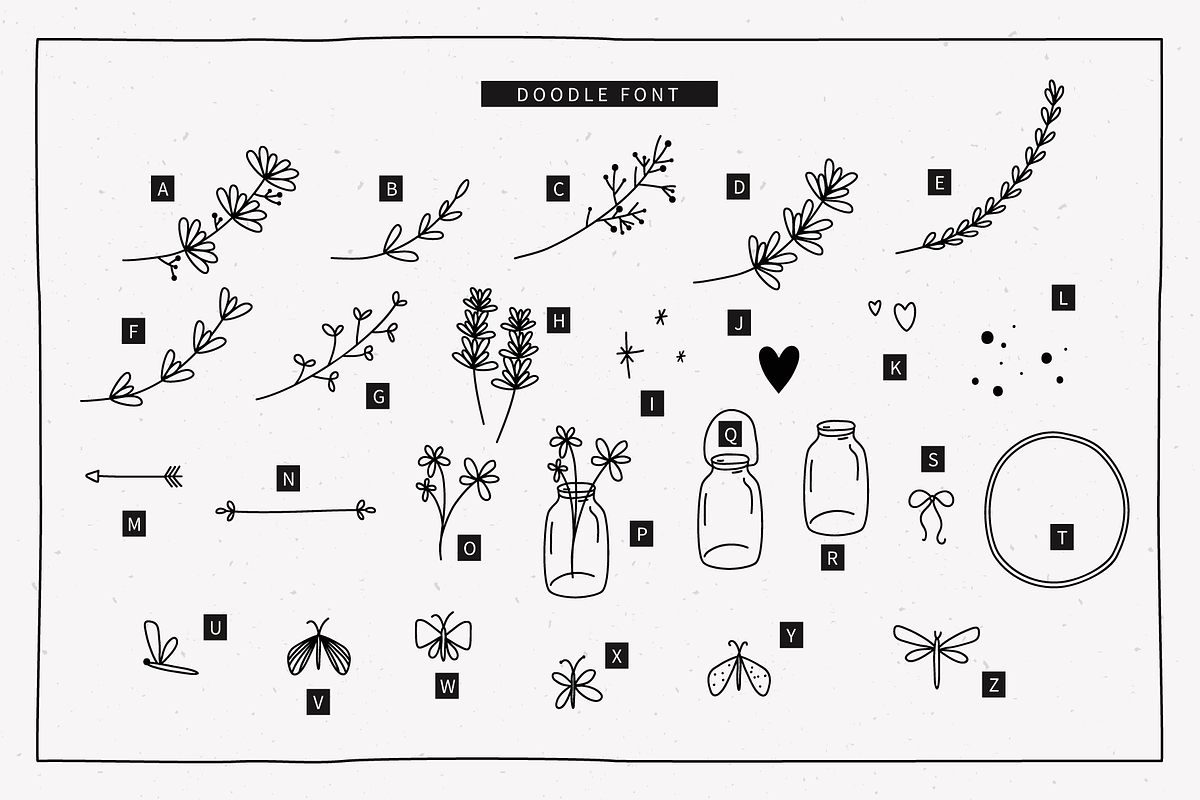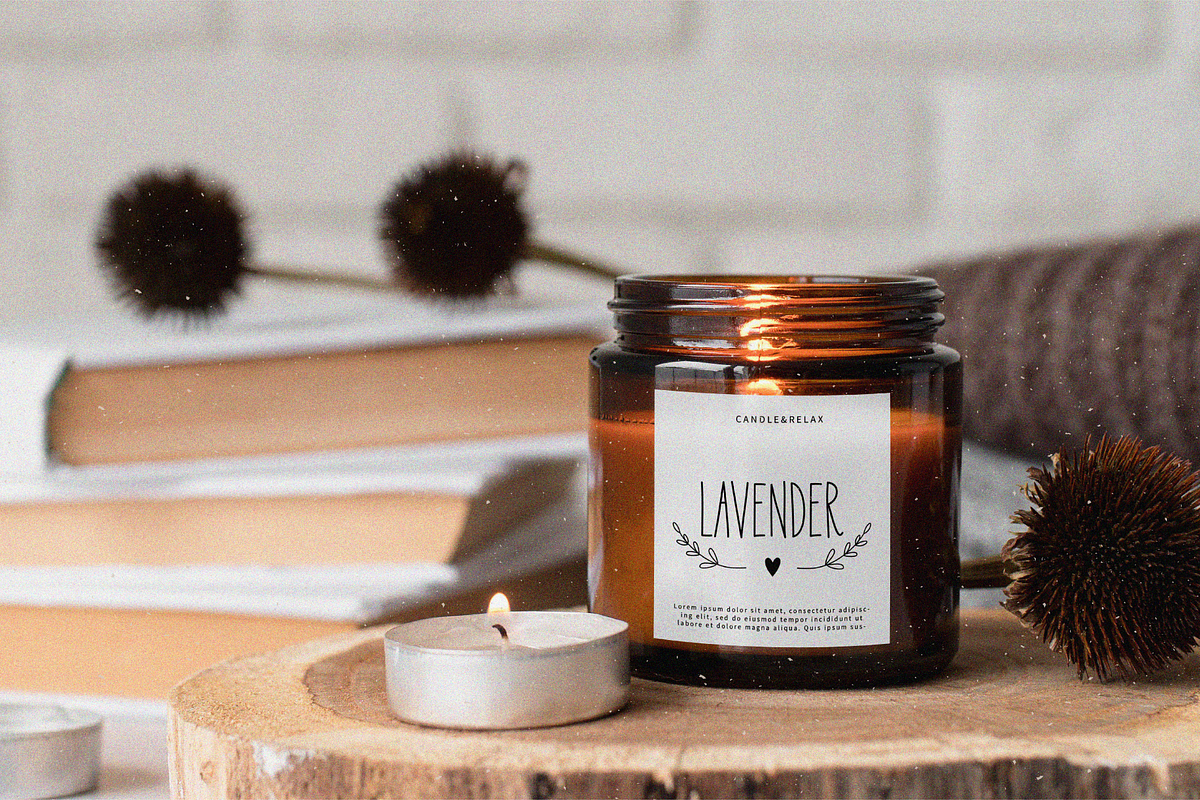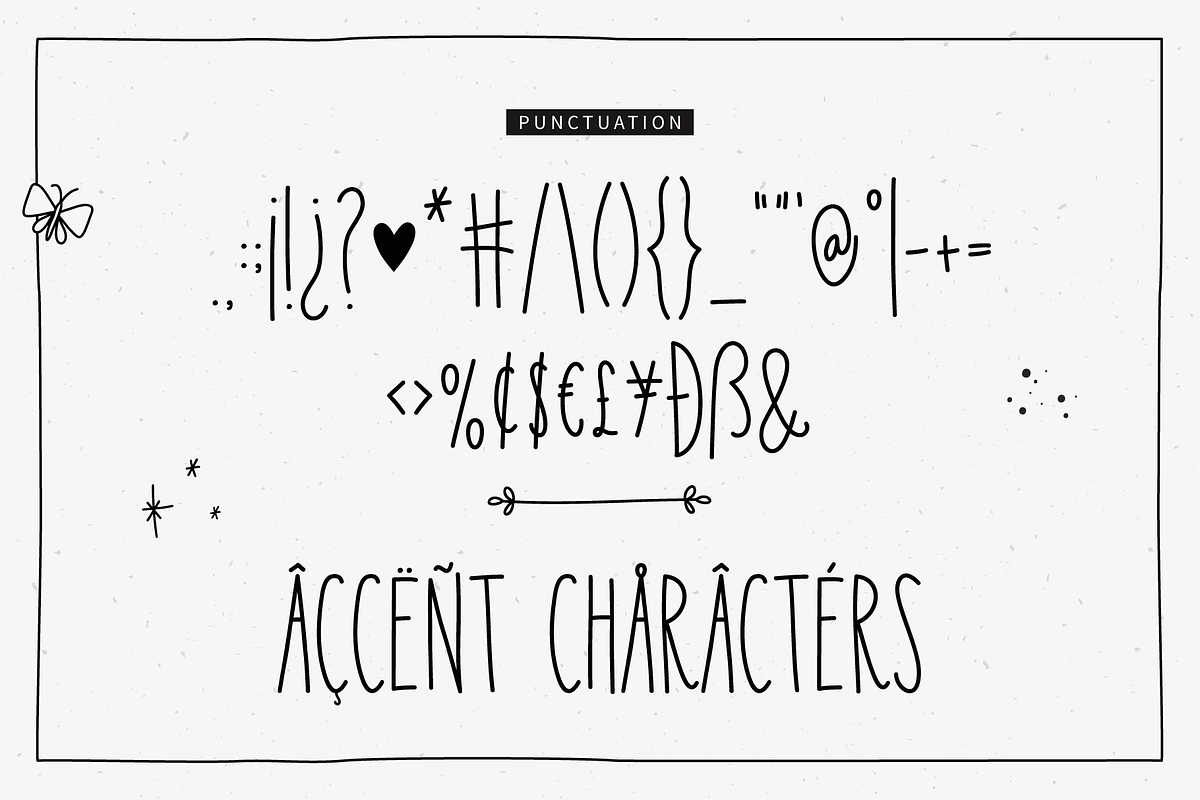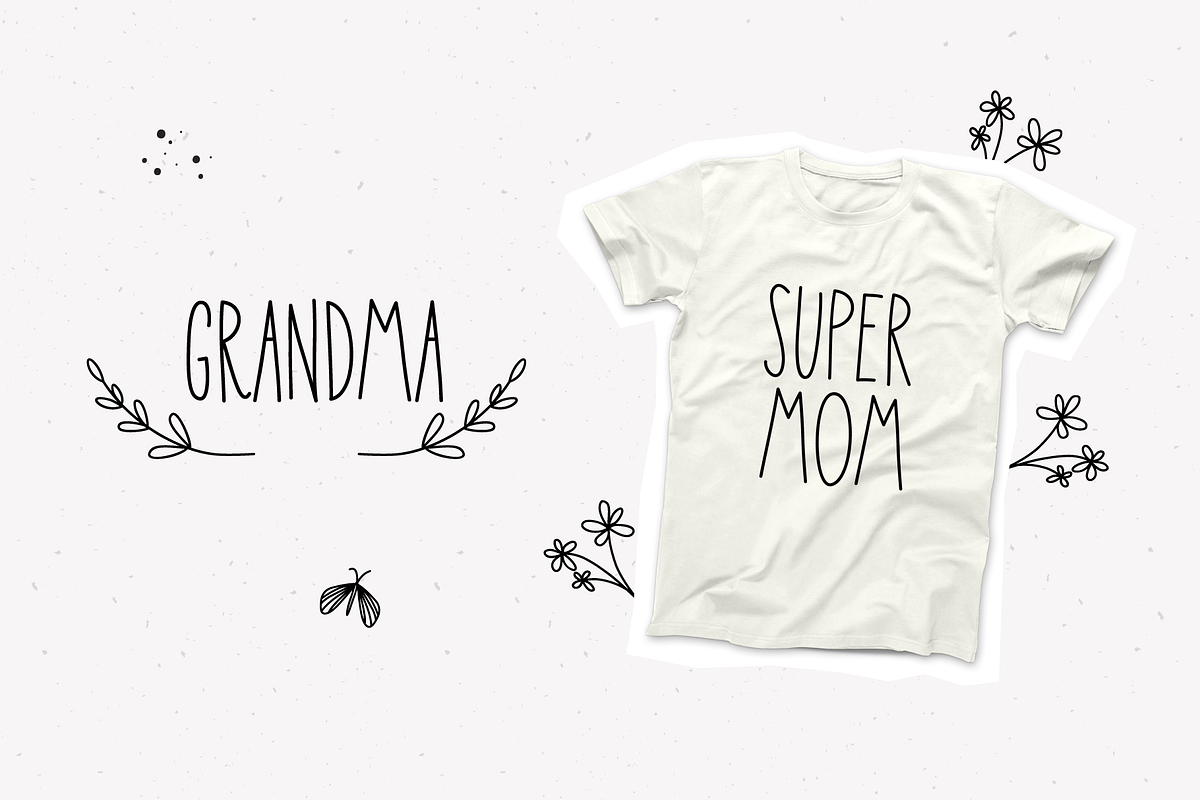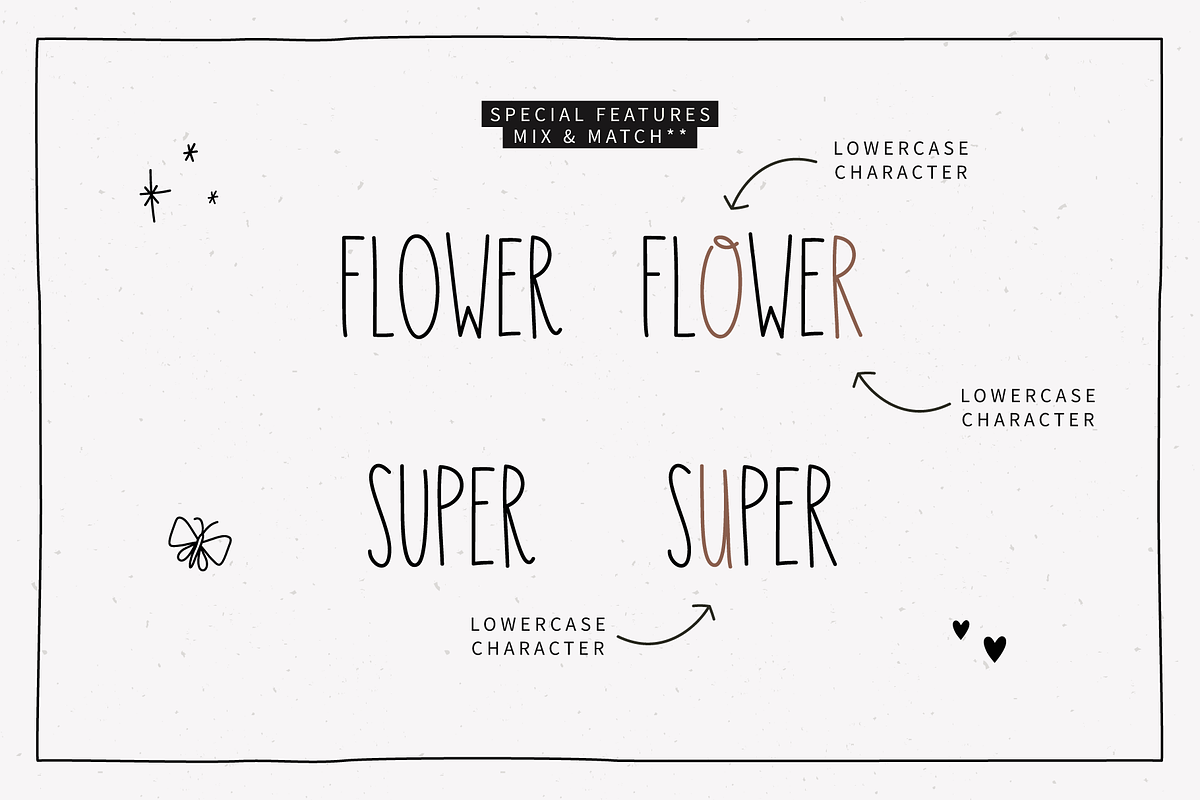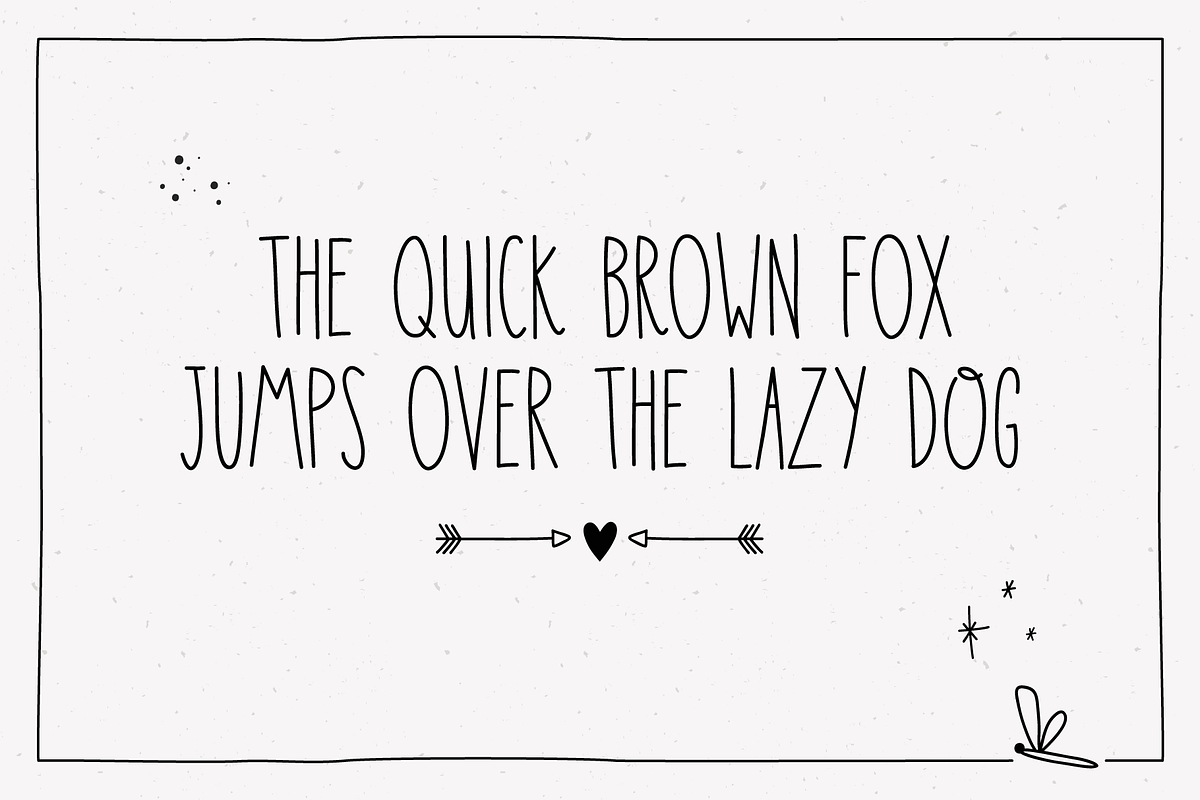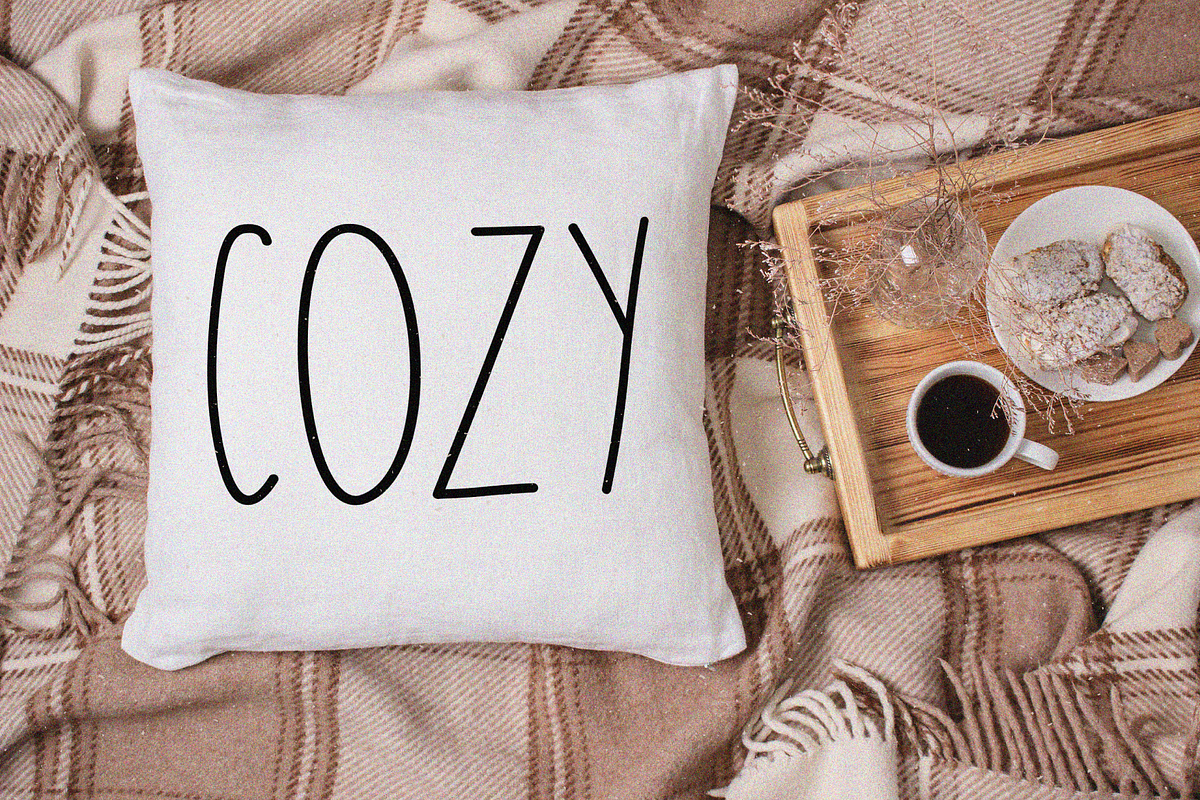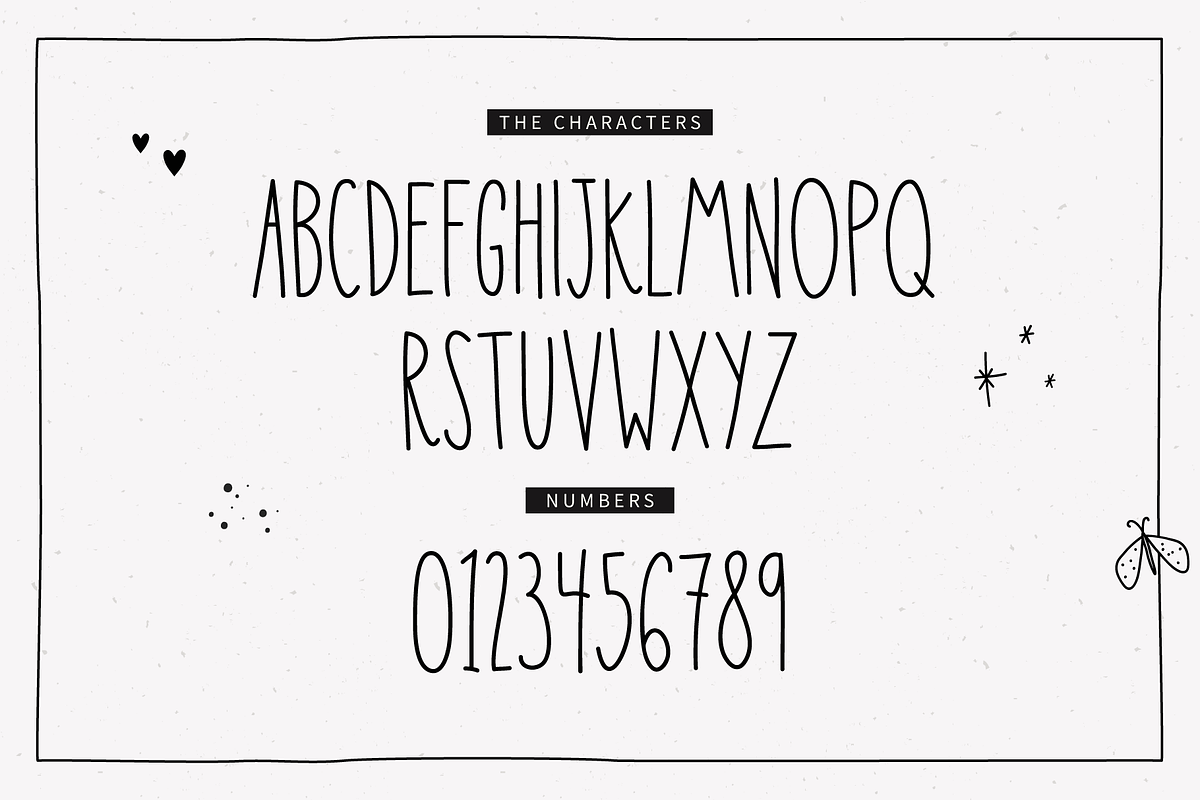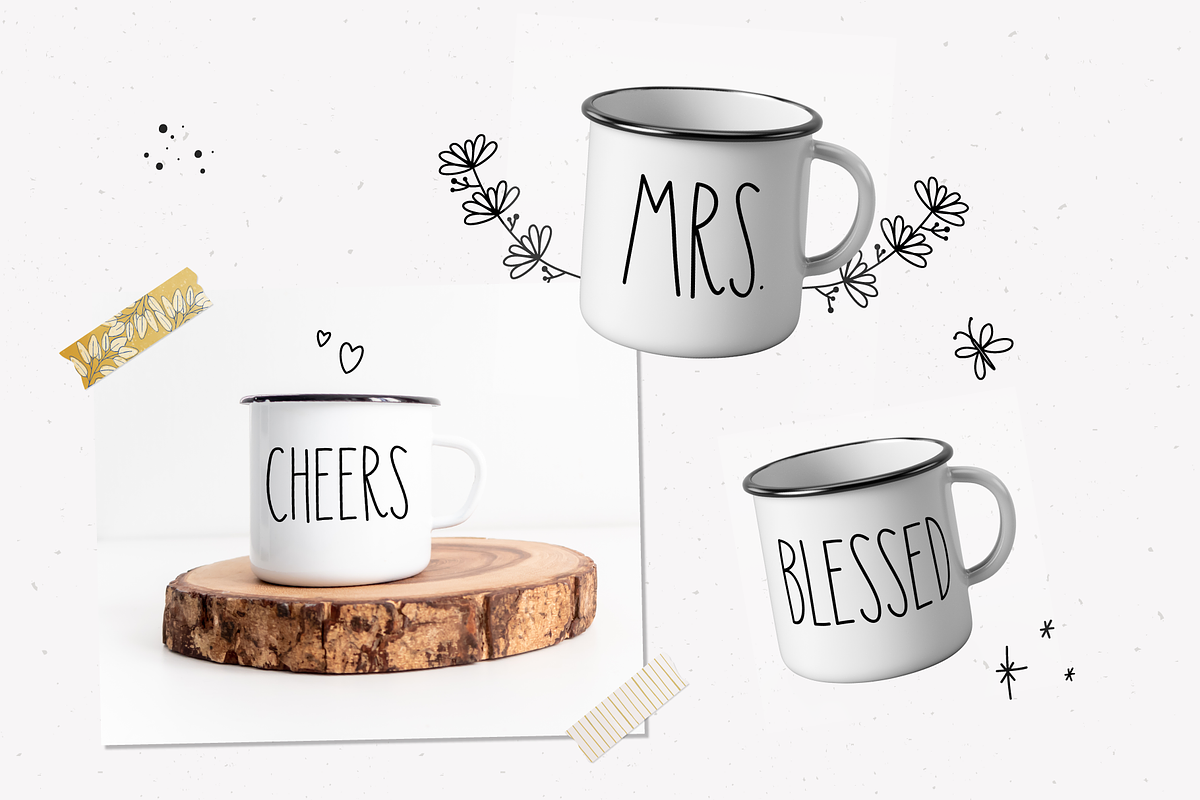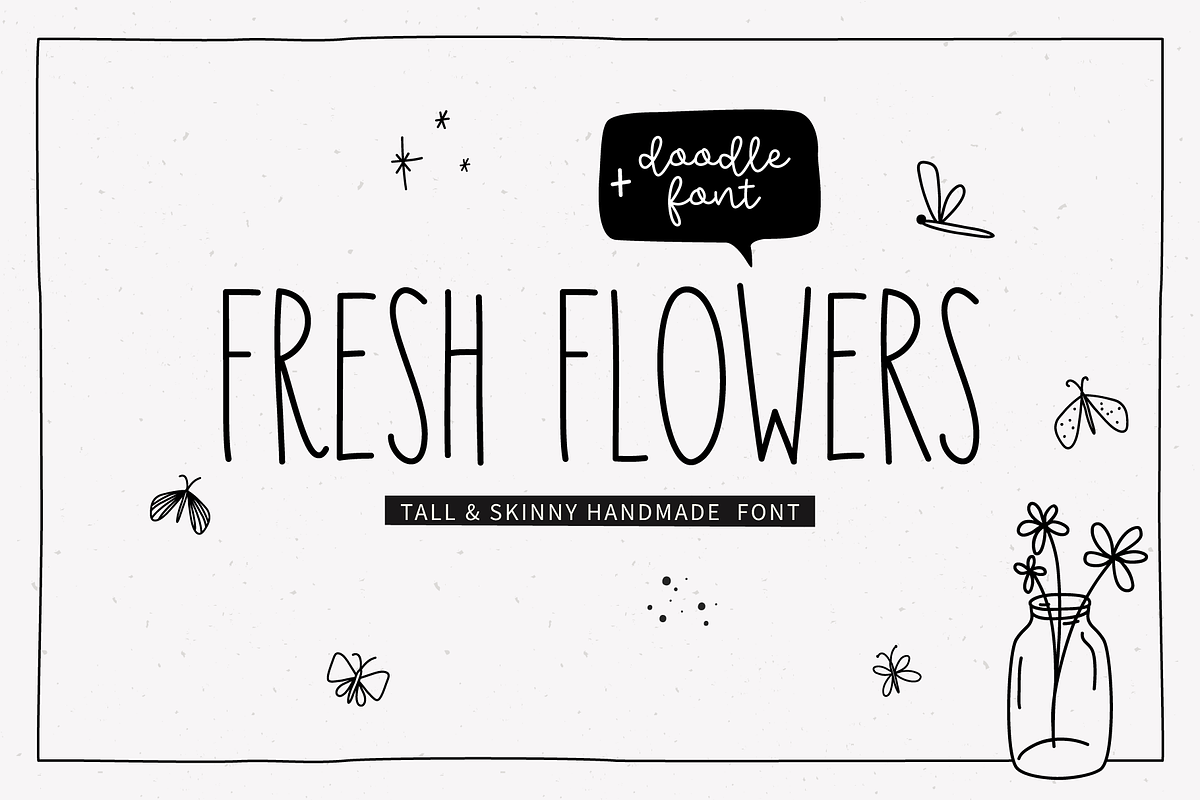
FRESH FLOWERS
Fresh Flower is a farmhouse inspired handmade font.
This font is perfect for signs, quotes, products, branding, etc. It will add an incredibly handmade touch to your designs. You can also create a lot of beautiful products with the additional source file (Doodles Fresh Flowers Font)
♥ MIX & MATCH NOTE: This font only includes 3 different lowercase characters than the uppercase characters; the characters are : o,r & u